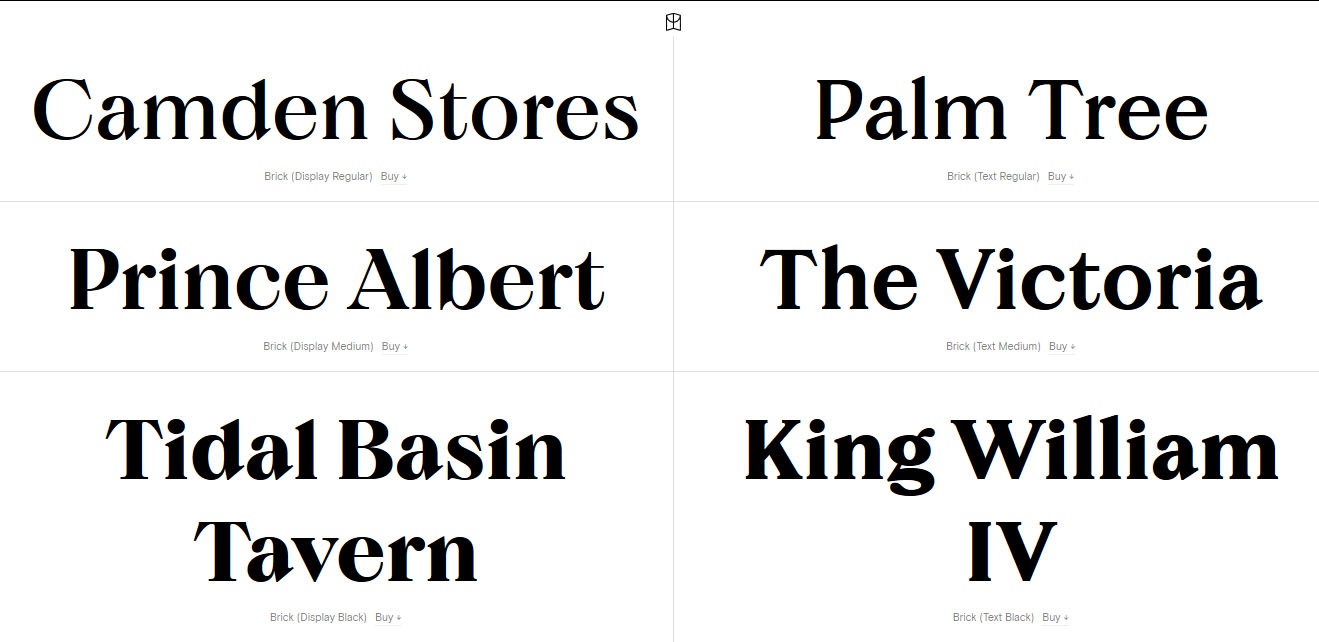
Brick Pro Font
Brick Pro Font is perfect for construction company branding, industrial signage, architectural presentations, building project materials, manufacturing logos, engineering documentation, structural design graphics, and robust corporate communications.
Brick Pro Font is exciting because it embodies solid construction excellence with sturdy letterforms and architectural character details that evoke structural integrity and professional craftsmanship. Its robust personality creates immediate associations with durability and reliable construction that resonates perfectly with audiences seeking dependable building solutions and engineering expertise.
Brick Pro Font family includes regular weight with industrial alternates and structural variations, providing designers with comprehensive options for creating solid typography solutions that project construction authenticity and engineering professionalism.
Brick Pro Font Free Download delivers premium construction typography that establishes structural authority and building credibility. This expertly crafted typeface demonstrates exceptional attention to architectural detail through its solid letterforms and construction-inspired character development that creates genuine industrial appeal without sacrificing modern functionality. The font's structural character makes it particularly suitable for construction companies, architectural firms, engineering consultancies, and building organizations seeking to establish reliable visual identity that resonates with clients requiring structural expertise and construction excellence.
Professional designers consistently select Brick Pro Font for projects requiring construction authenticity and industrial visual impact. Its sturdy character works magnificently in construction environments, architectural presentations, building project marketing, and industrial documentation where structural competence and construction reliability drive client confidence. The font's solid nature creates dependable brand experiences that communicate building excellence and structural capability.
Construction teams appreciate Brick Pro Font's ability to communicate building reliability and structural sophistication in competitive construction markets. Its solid styling transcends decorative typography approaches while maintaining the strength required for construction positioning, making it an essential tool for organizations seeking to establish structural credibility through superior building typography and exceptional construction communication.